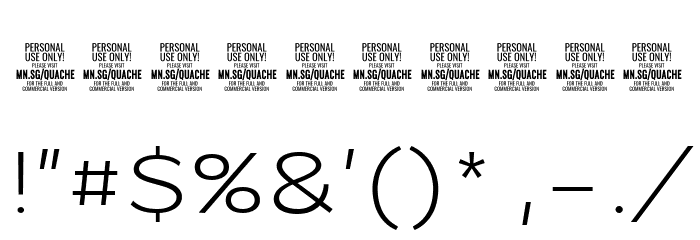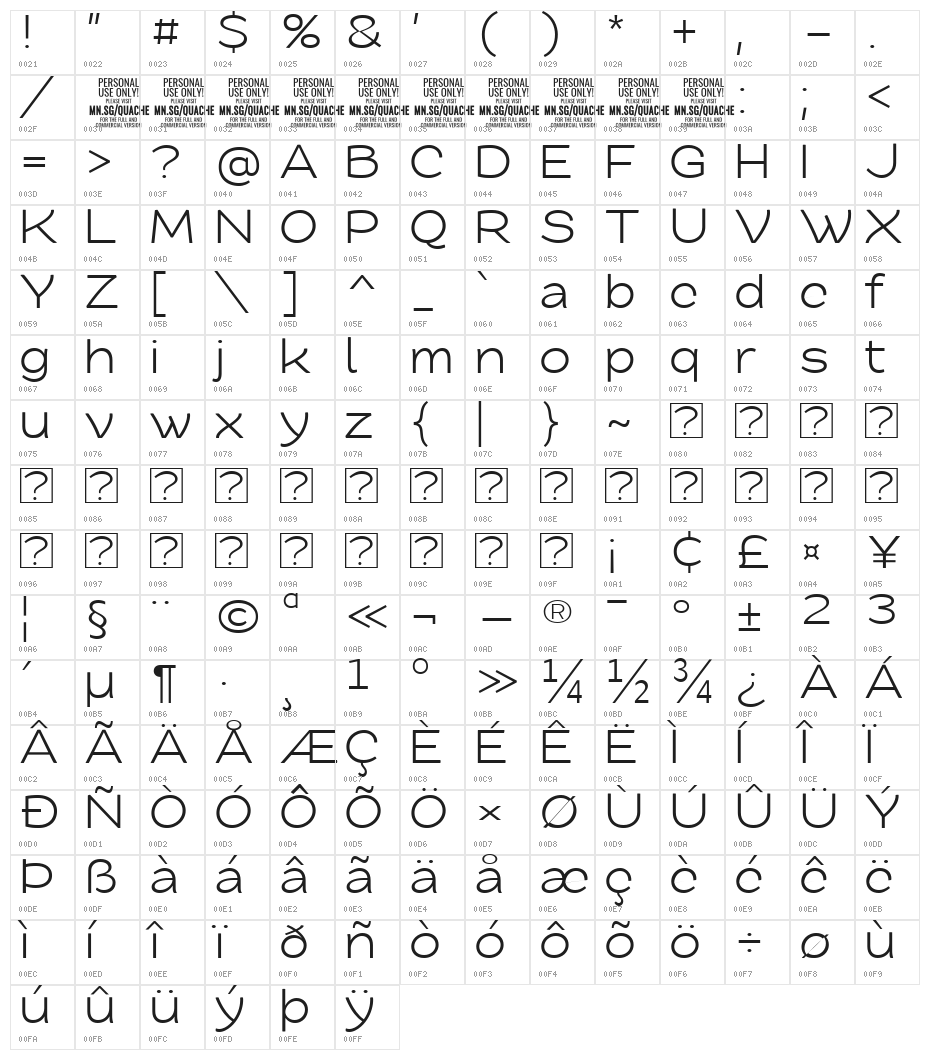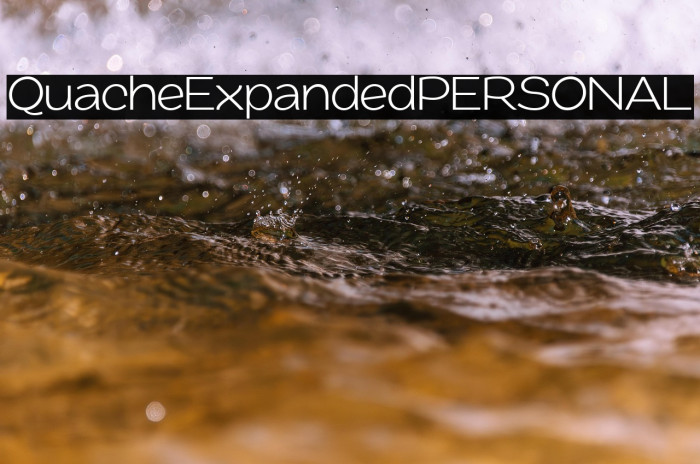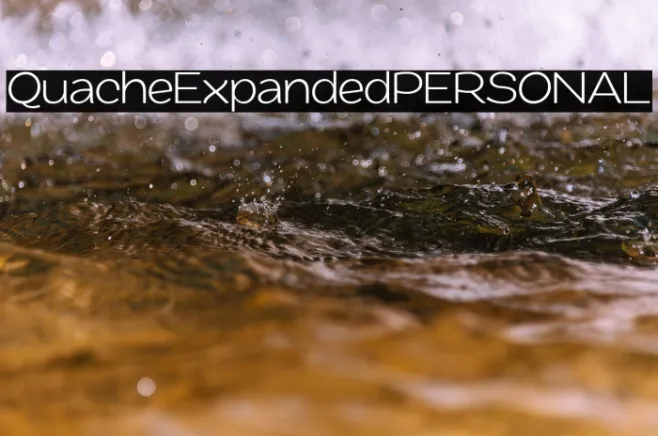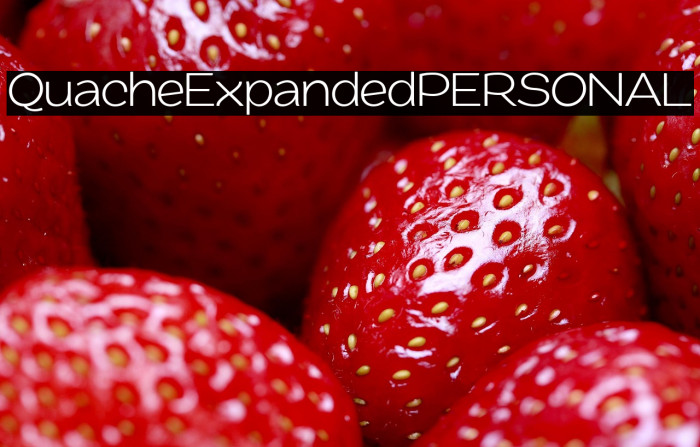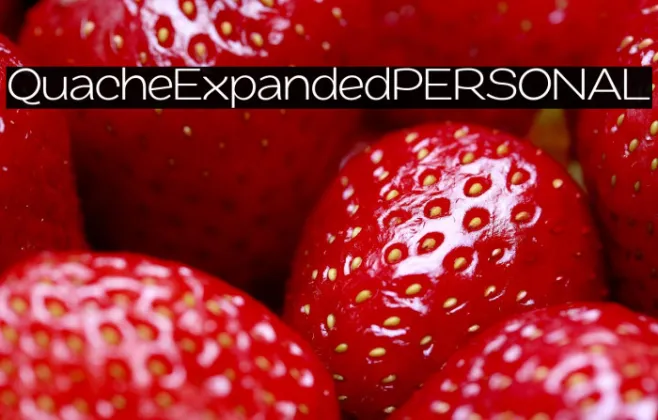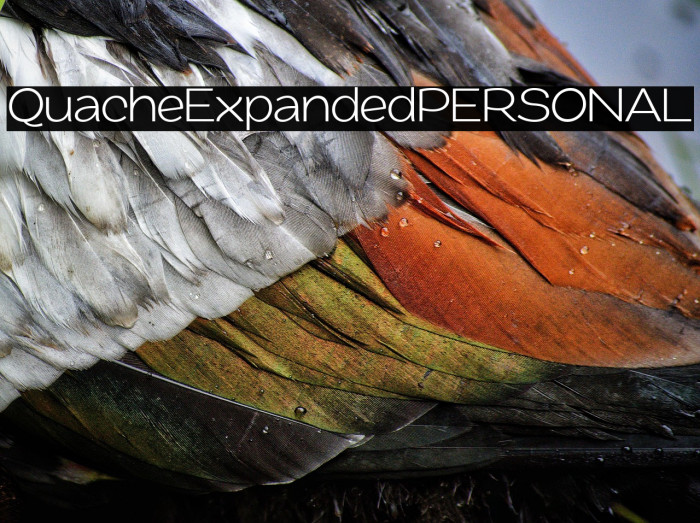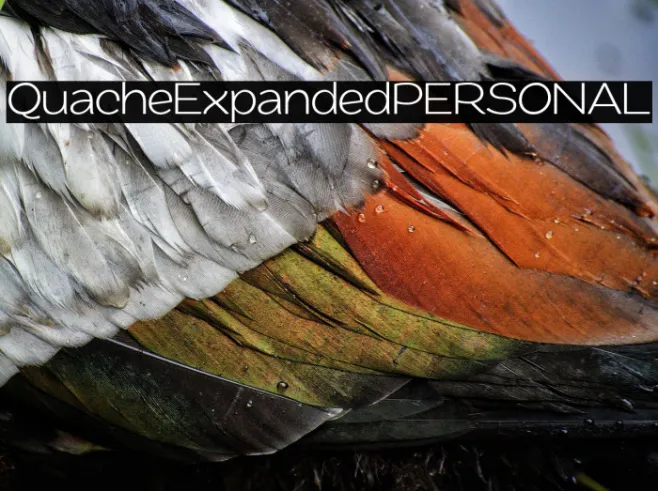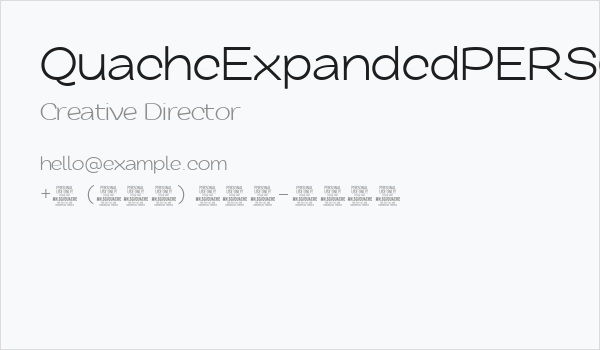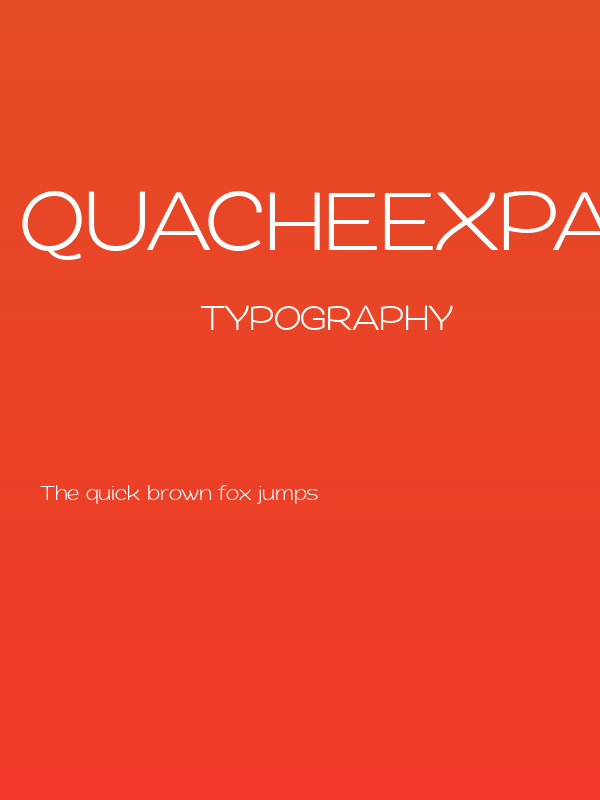
QuacheExpandedPERSONAL Font
QuacheExpandedPERSONAL Description
This font features a modern, geometric sans-serif style with clean lines and a uniform stroke width. The characters are slightly expanded, giving them a spacious and airy appearance. The uppercase letters are tall and elegant, while the lowercase letters maintain a consistent height, contributing to a harmonious overall look. The numerals are clear and legible, matching the style of the alphabet. Special characters are well-defined, maintaining the font's sleek aesthetic. This font is versatile, suitable for both digital and print media, and can be used effectively in various design projects.